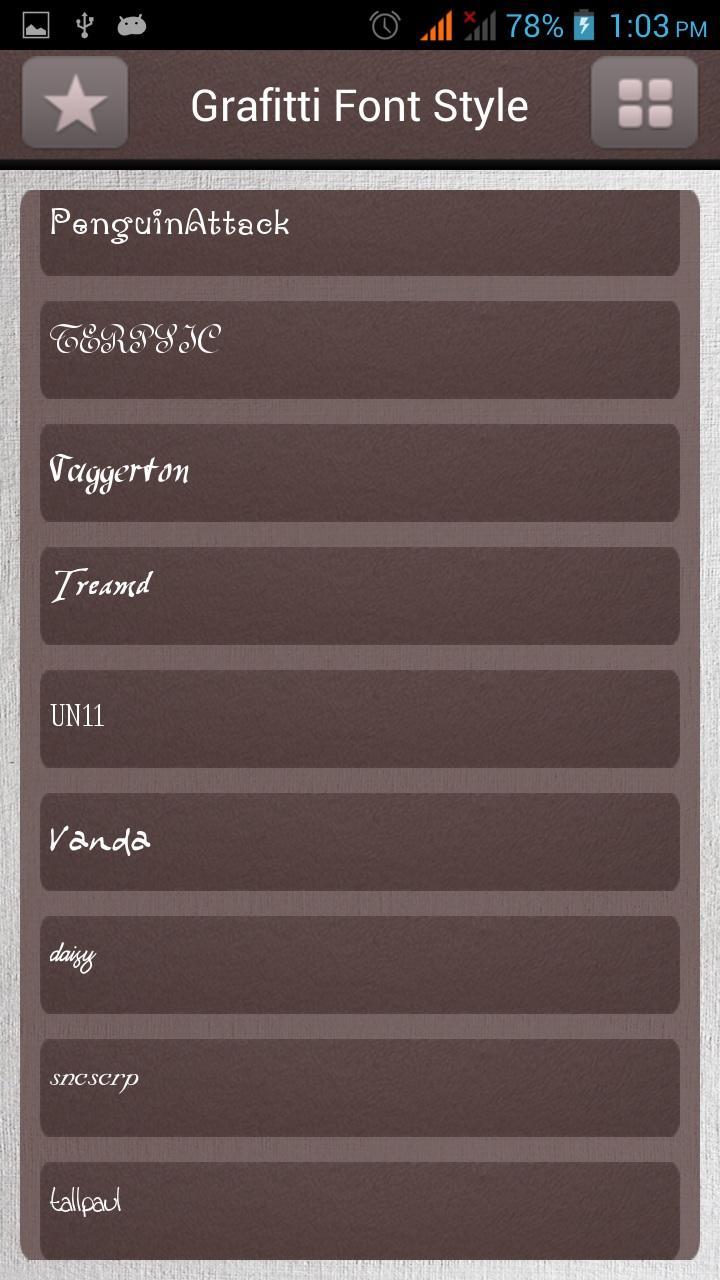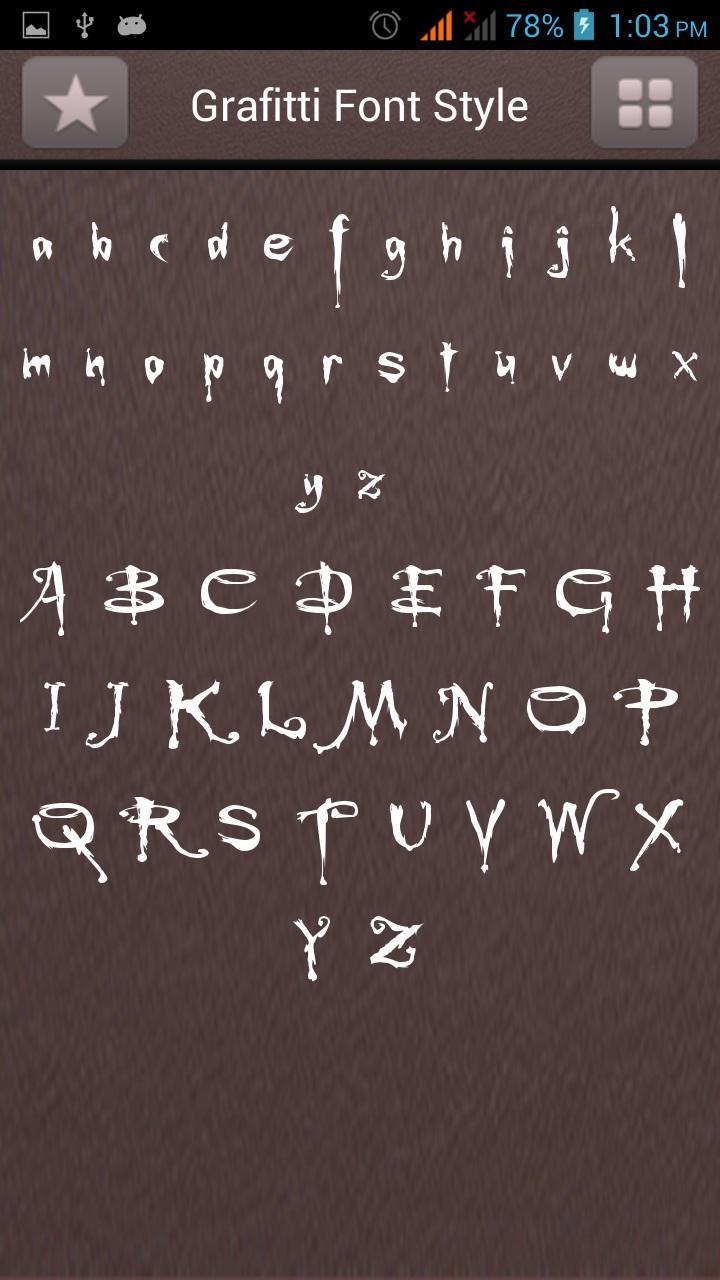
About Graffiti Font Style
Graffiti Font is used to change your device font style change.
Graffiti Font fot used to set smoothly pointed with graffiti style and apply in your phone device.